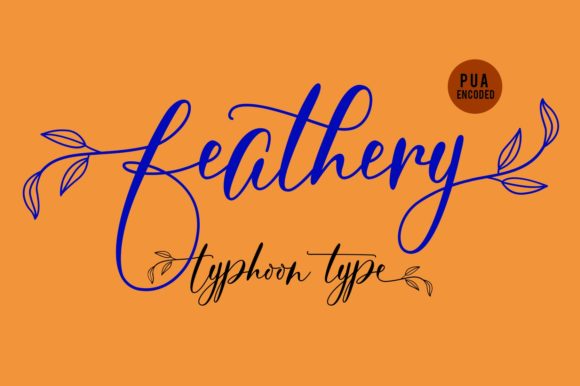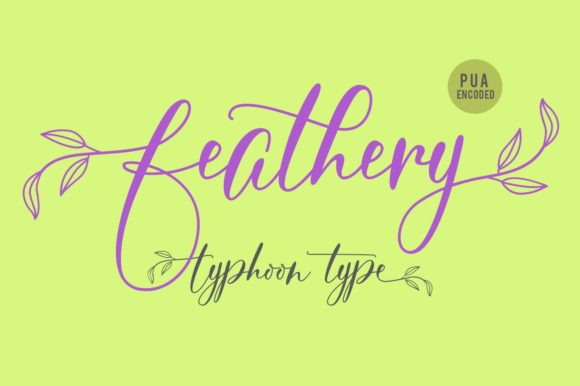
Unlock the Magic of Feathery Font
Have you ever been in the midst of a creative project, and the perfect font just seems to be missing? You envision a delicate, flowing script that perfectly captures the essence of your vision. For designers, this is a common conundrum, but what if I told you that there’s a font that can elevate your designs to new heights?
Enter Feathery Font, a beautiful handwritten font that exudes elegance and sophistication. Its unique style is both timeless and distinct, making it the perfect addition to any project. Whether you’re a seasoned designer or just starting out, Feathery Font is a valuable asset that can help you create stunning designs. With its PUA encoding, you can easily access all the glyphs and swashes, giving you endless possibilities for creative expression.
Key Features of Feathery Font
- Character Set: Includes a wide range of characters, including uppercase and lowercase letters, numbers, and special symbols, making it a versatile font for various applications.
- Unique Characteristics: Features a unique, feathery design with subtle texture and irregularities, giving it a hand-drawn feel and a touch of elegance.
- Language Support: Supports multiple languages, including English, Spanish, French, German, Italian, and many more, making it a great choice for international applications.
Feathery Font Review
Overall, I have mixed feelings about the Feathery Font. While it has some redeeming qualities, there are also some limitations that prevent it from being a top contender in the font market.
- Unique Design – The Feathery Font has a distinctive, whimsical design that can add a touch of personality to any project.
- Legibility – Despite its unconventional design, the font is surprisingly easy to read, even at smaller sizes.
- Customization Options – The font comes with a range of customization options, including different weights and styles.
- Limited Character Set – The font’s character set is somewhat limited, which can make it difficult to use for extended periods of time.
- Not Suitable for Body Text – Due to its decorative nature, the font is not well-suited for body text and can be overwhelming when used extensively.
In conclusion, the Feathery Font is a solid choice for projects where a unique, eye-catching design is necessary. However, it may not be the best option for projects that require a more traditional or readable font.